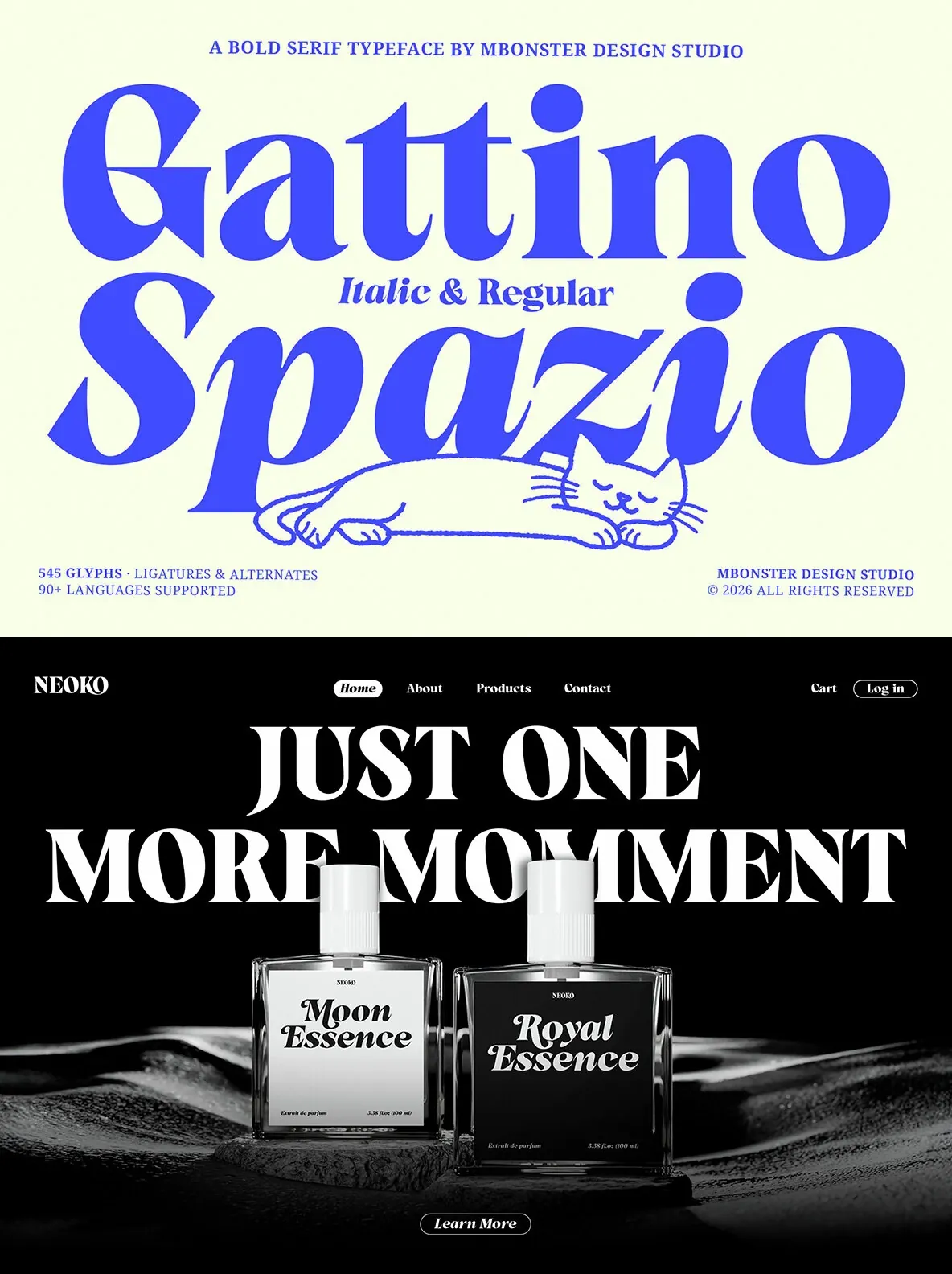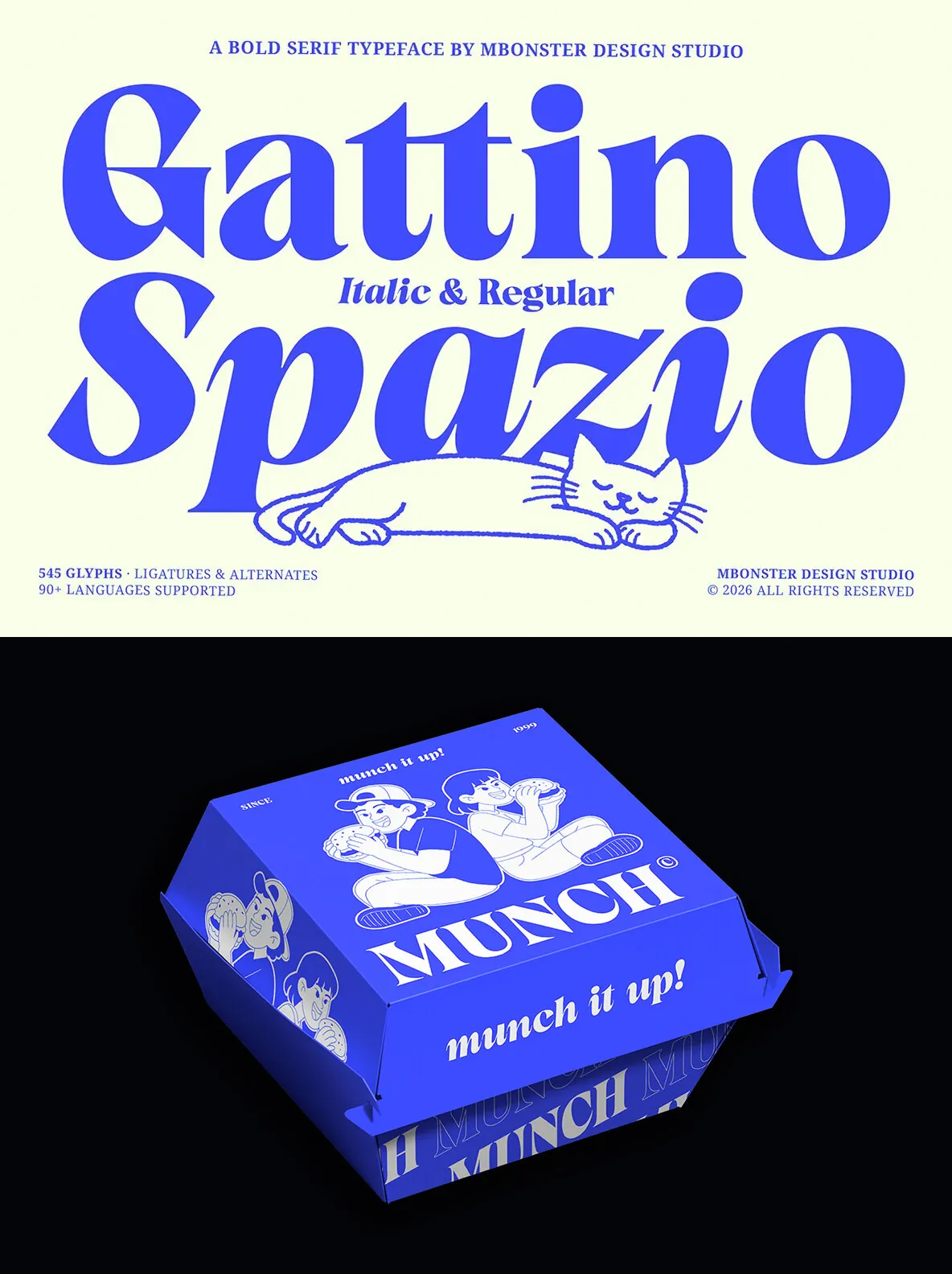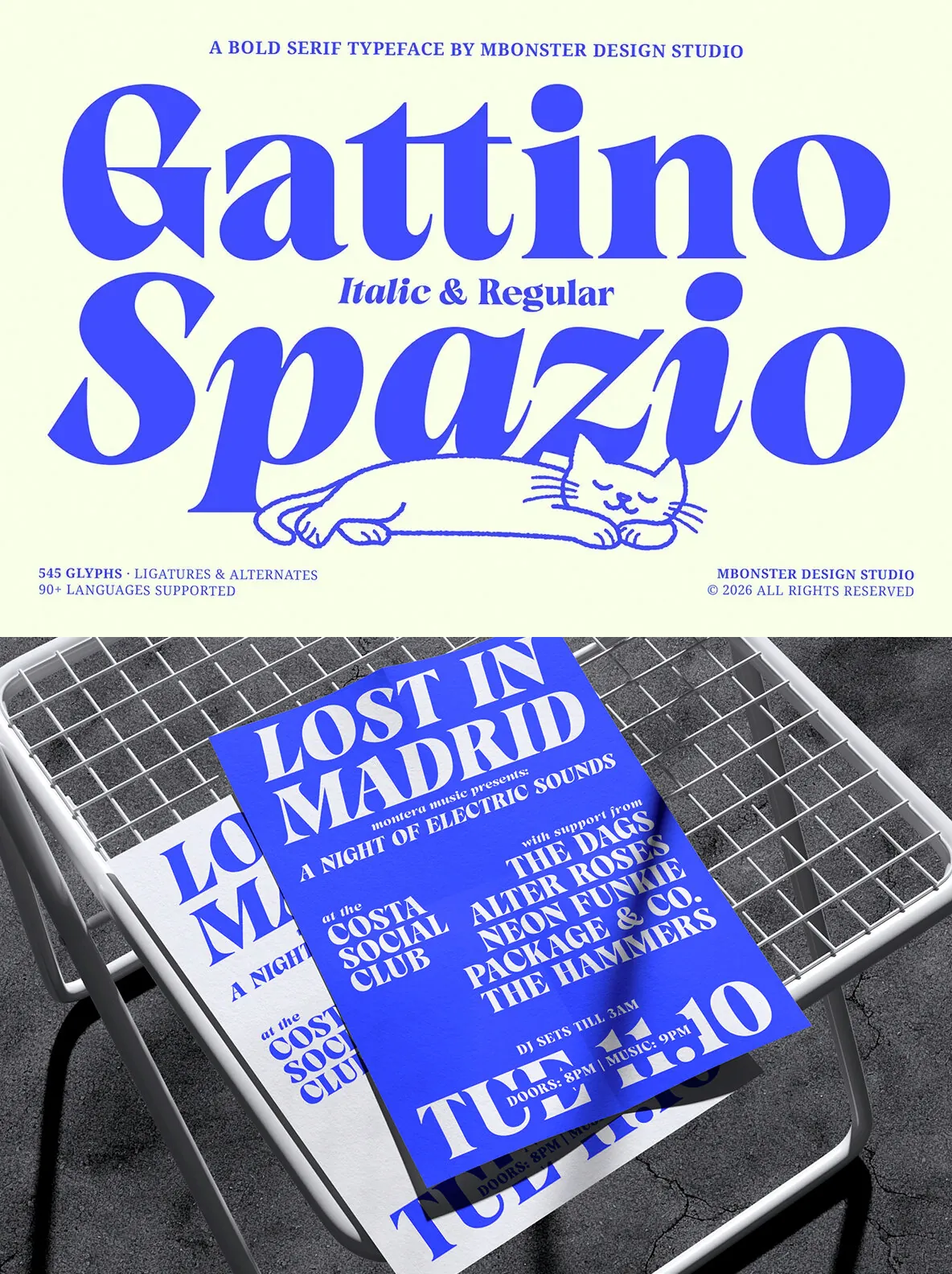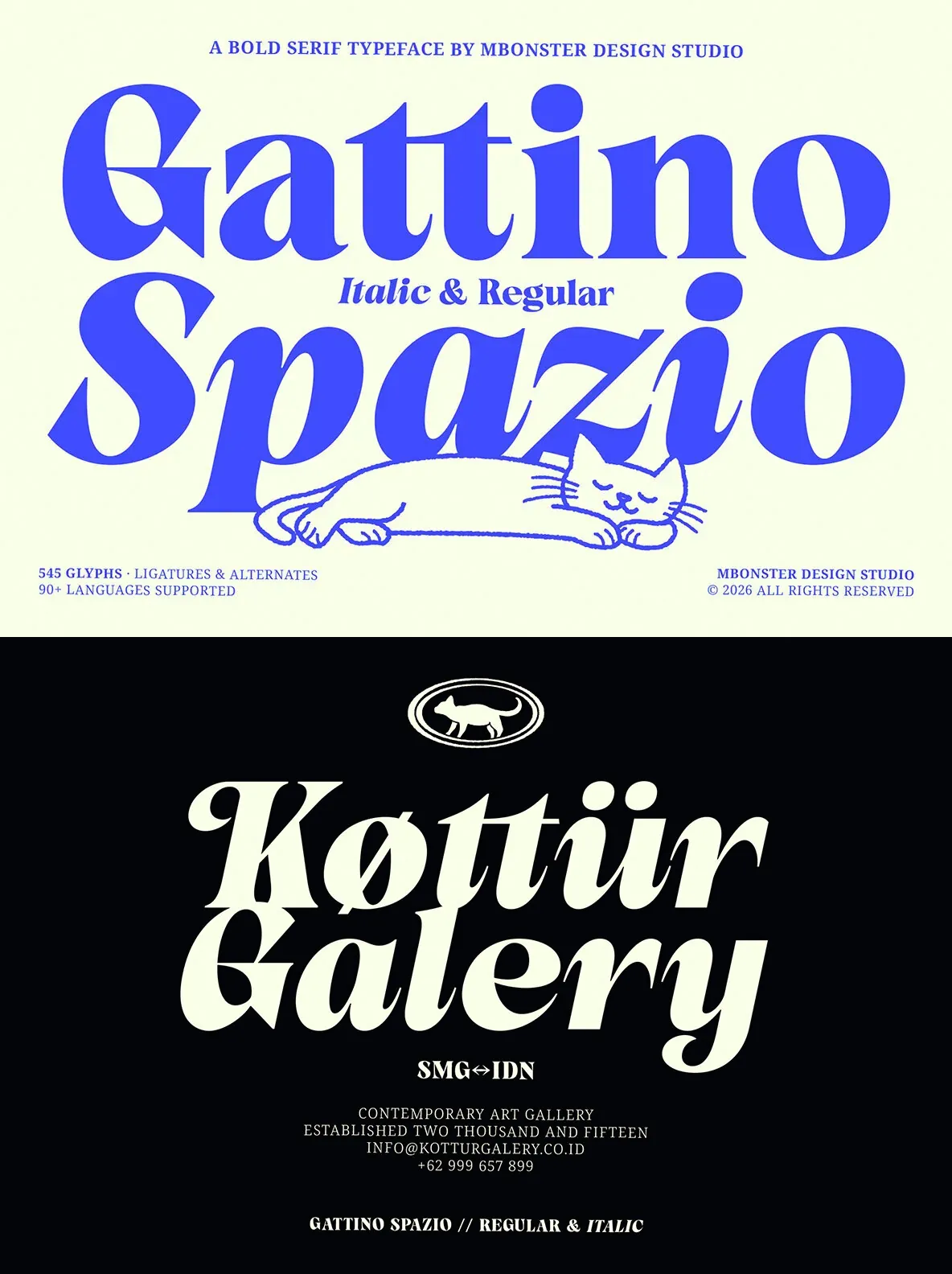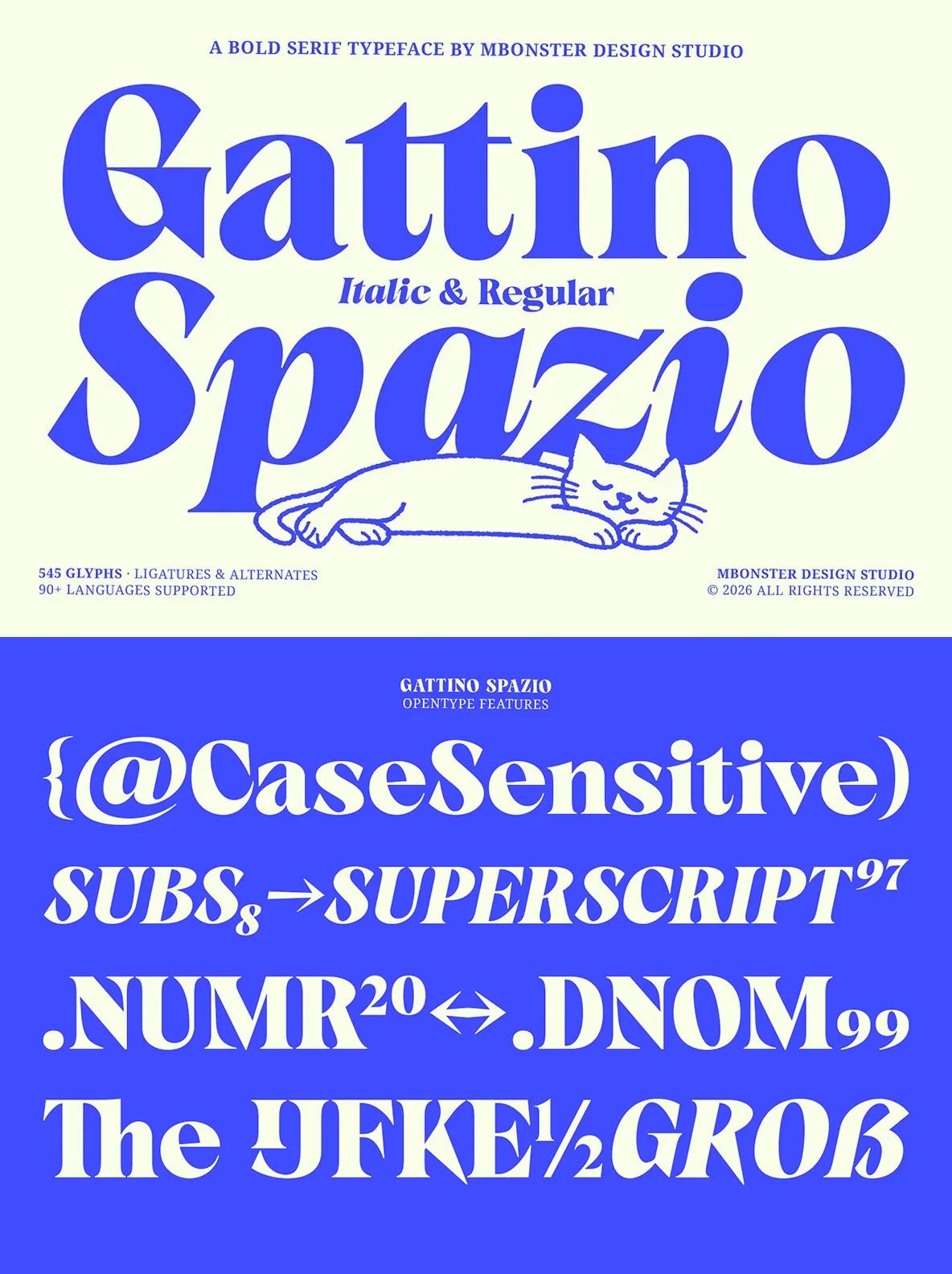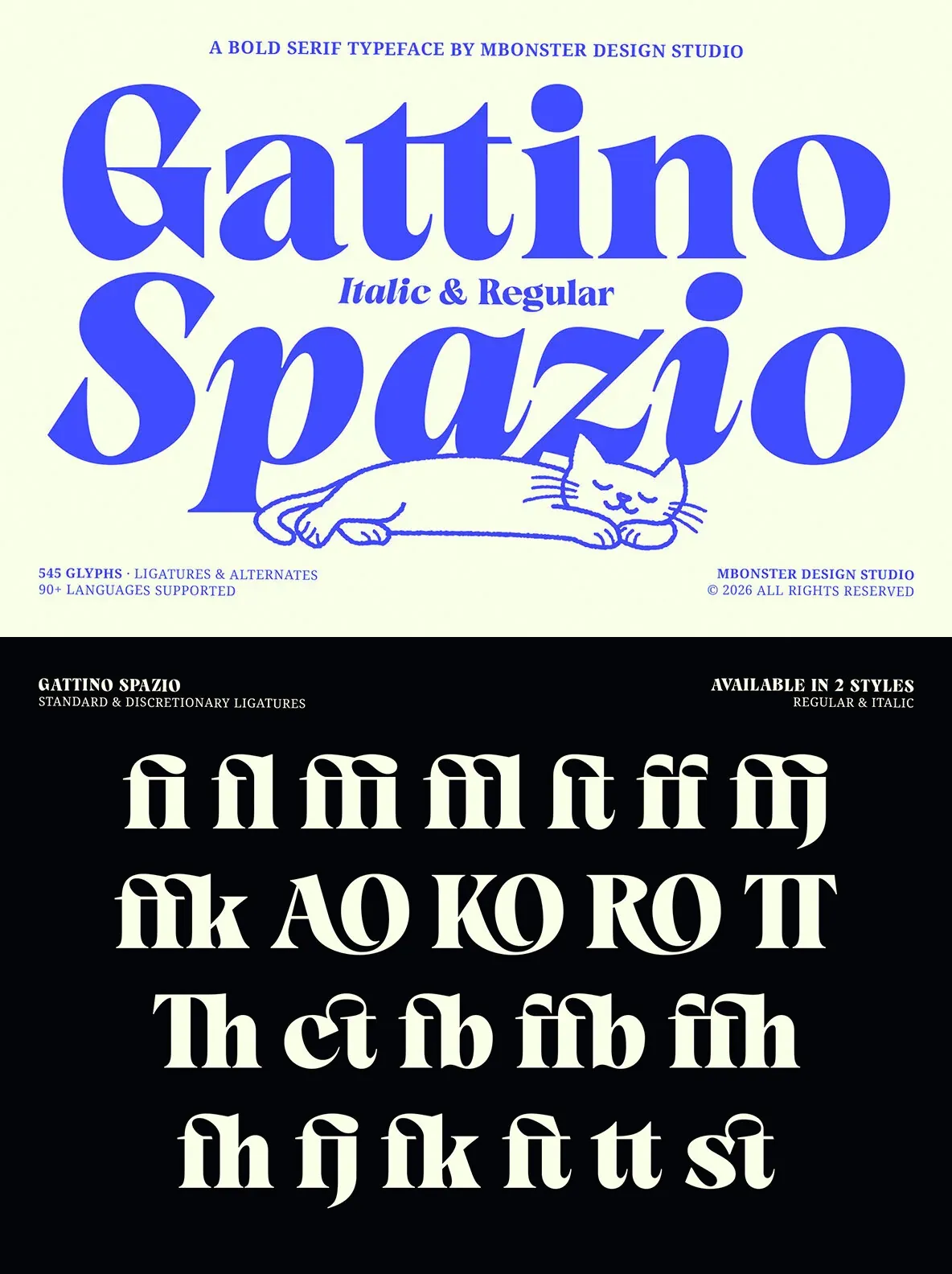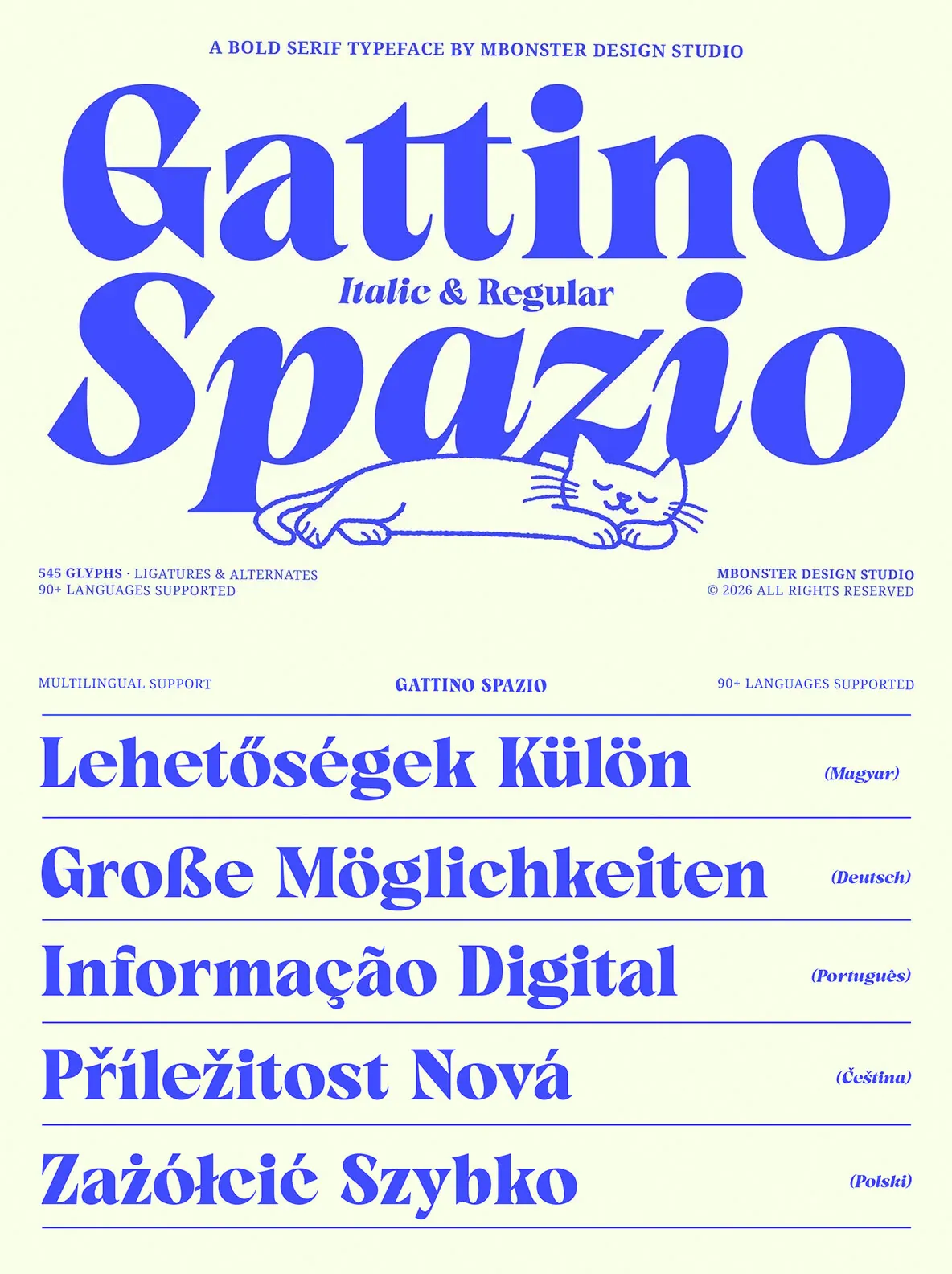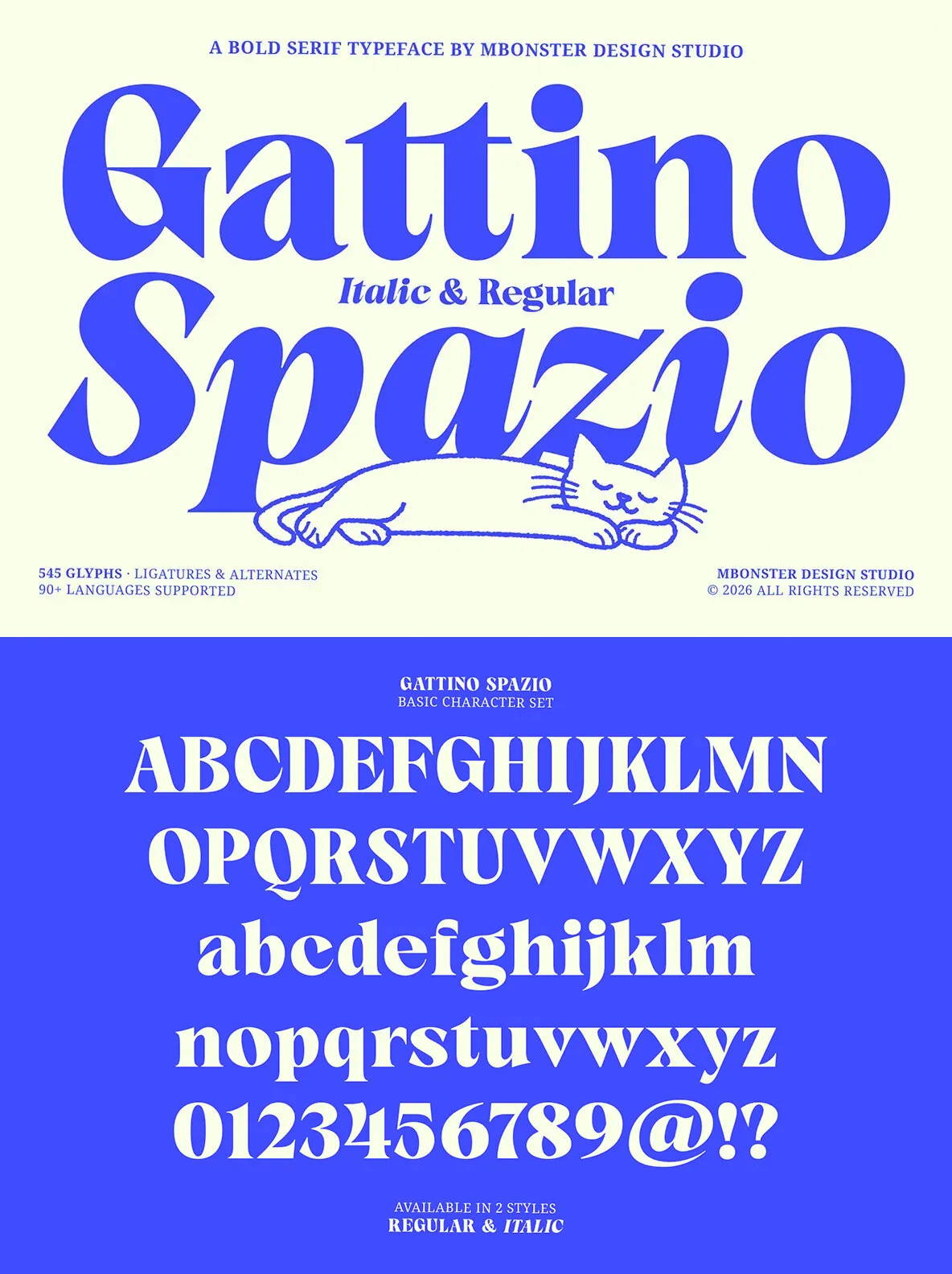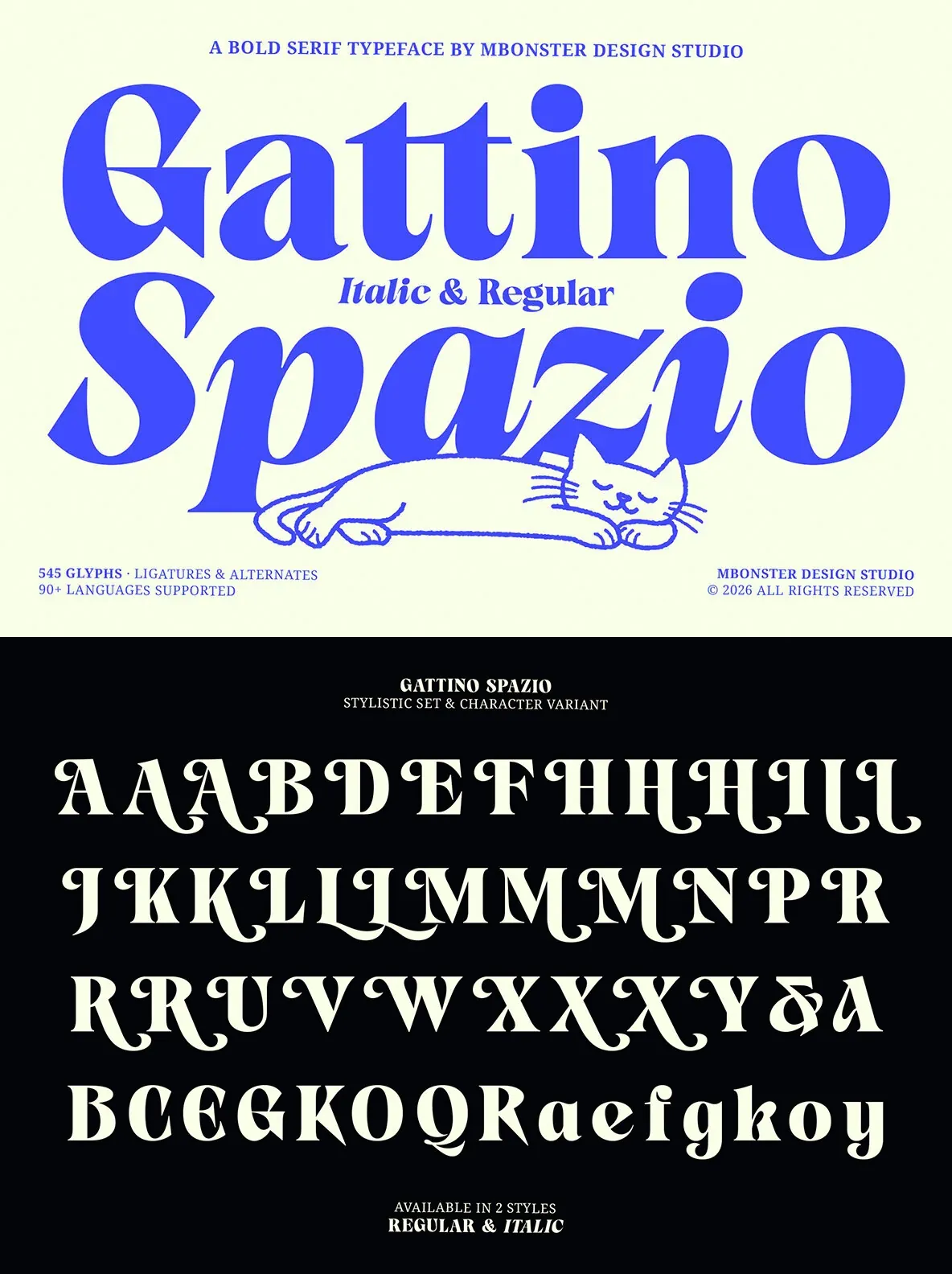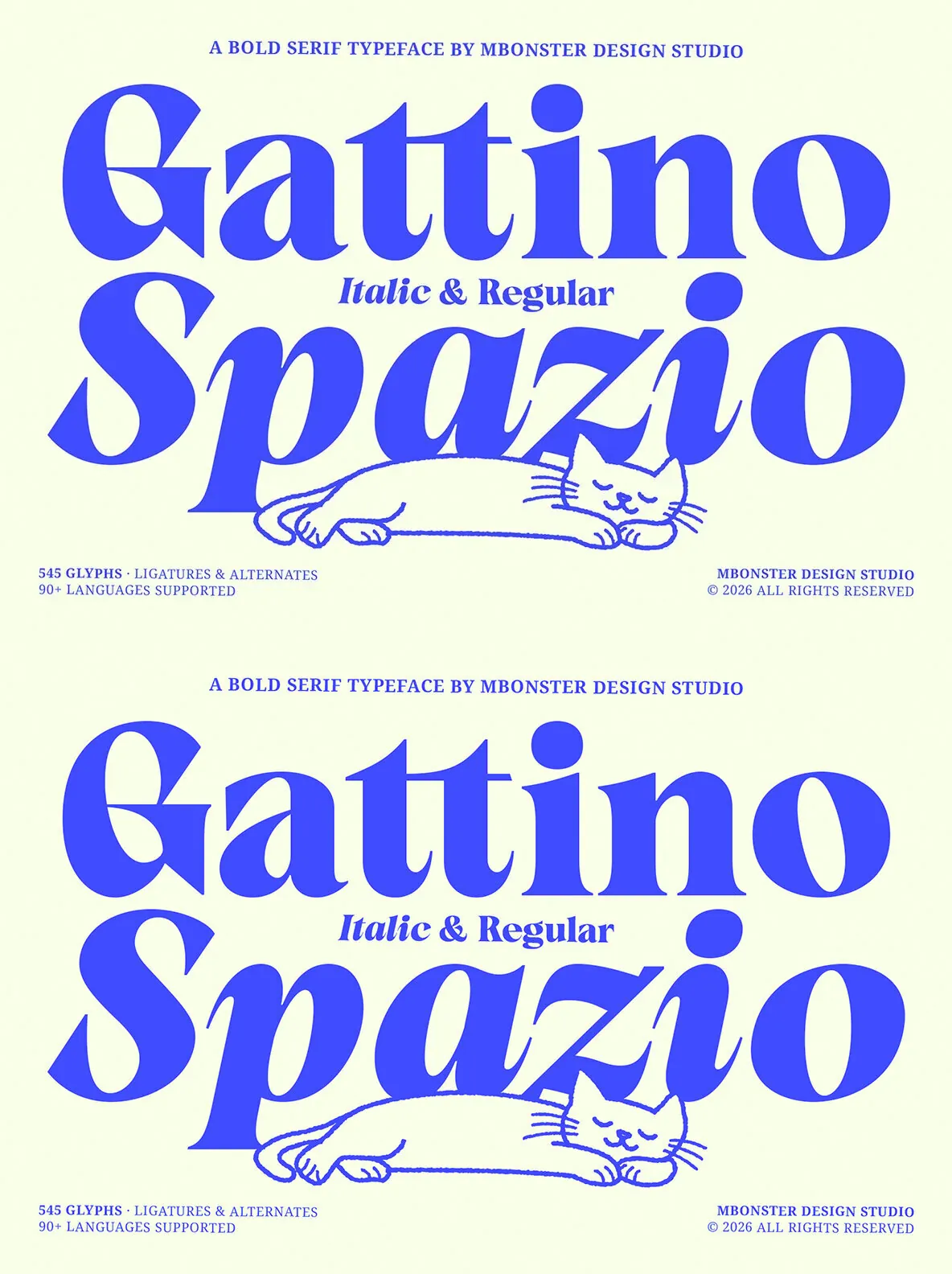
Gattino Spazio — High-Fashion Serif Poise
Gattino Spazio is a contemporary display serif designed to command attention and give visual identity a polished sense of sophistication. It blends high-fashion elegance with organic, character-driven expression, drawing from the classic Didone tradition through striking contrast, refined hairlines, and subtle humanist details that add warmth and movement.
Every curve is carefully drawn for impact and versatility, making Gattino Spazio ideal for premium, memorable design. Use it for luxury branding, jewelry and perfume packaging, boutique food and beverage design, editorial layouts, exhibition posters, fashion headlines, book covers, and modern merchandise. Its refined presence brings a high-end feel to applications that need style, distinction, and an immediate lasting impression.
2 Font Styles:
Includes both Regular and Italic versions for versatile design options.
High-Contrast Design:
Elegant thick-and-thin strokes create a sophisticated, luxury aesthetic.
Complete Character Set:
Full Uppercase, Lowercase, Numbers, and Punctuation.
Creative OpenType Features:
Access to unique ligatures and stylistic alternates for custom branding.
Global Multilingual Support:
Supports Latin Extended characters, compatible with various Western and Central European languages.
Gattino Spazio is more than a typeface. It is a statement of style and distinction, made to help your work stand out, capture attention instantly, and leave a lasting impression.